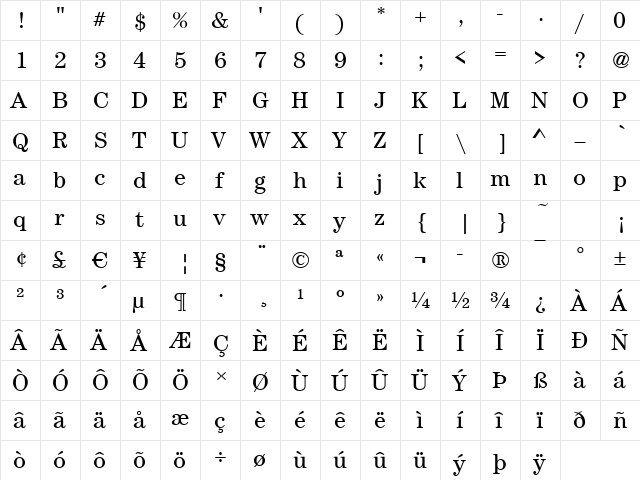
CenturyNova Book
Design Context for CenturyNova Typeface
CenturyNova is a composed and adaptable typeface that performs quietly and consistently across a wide range of design contexts.